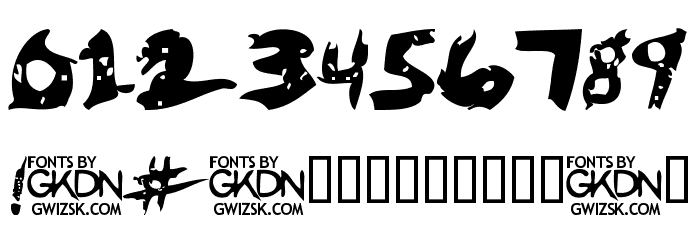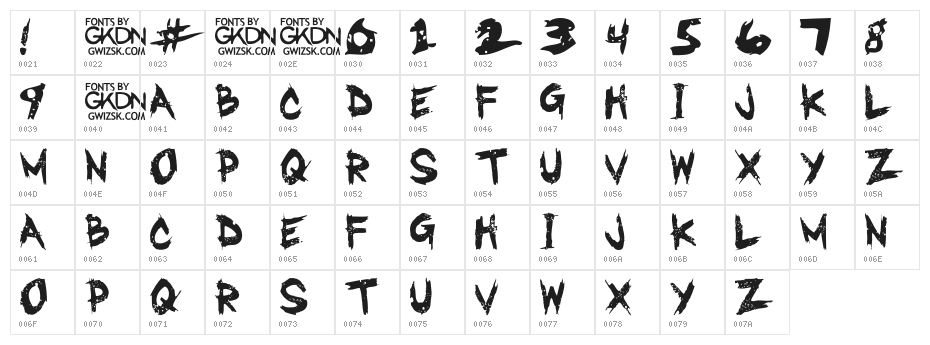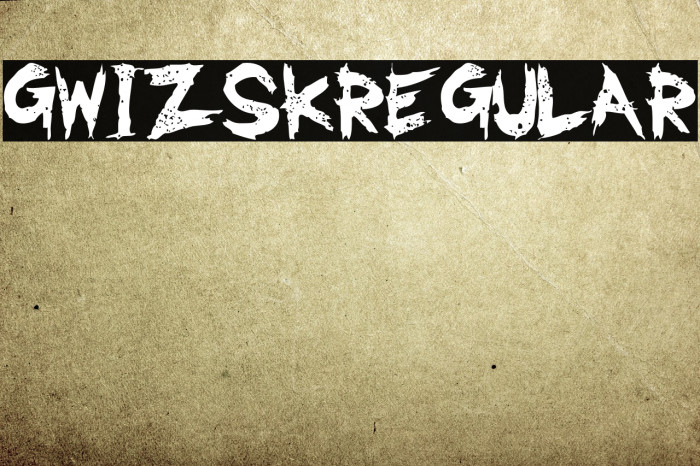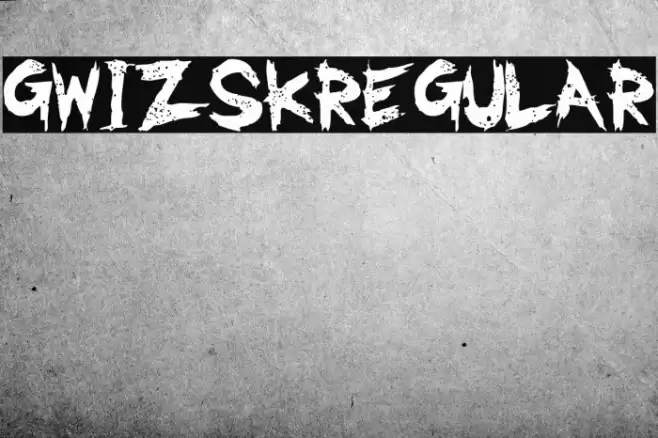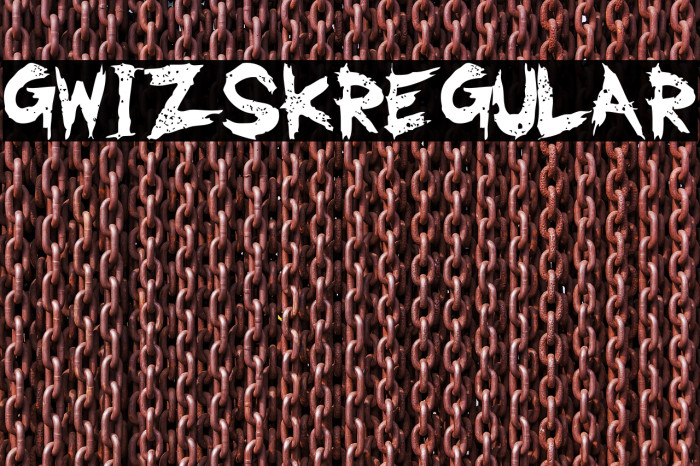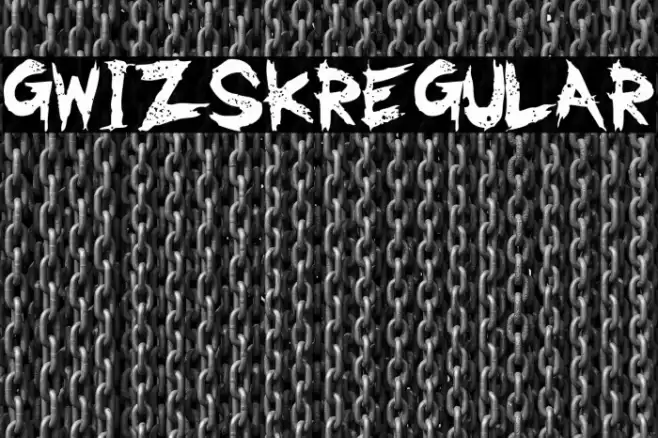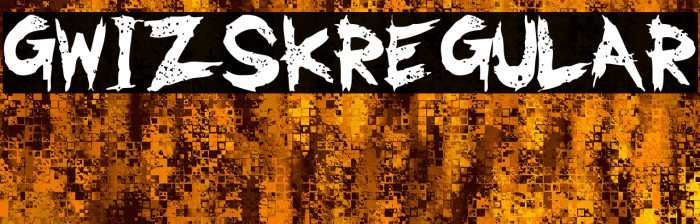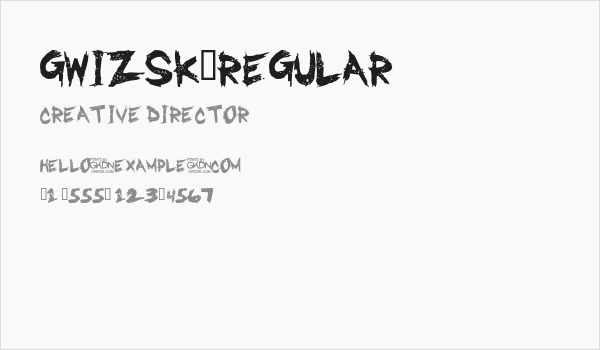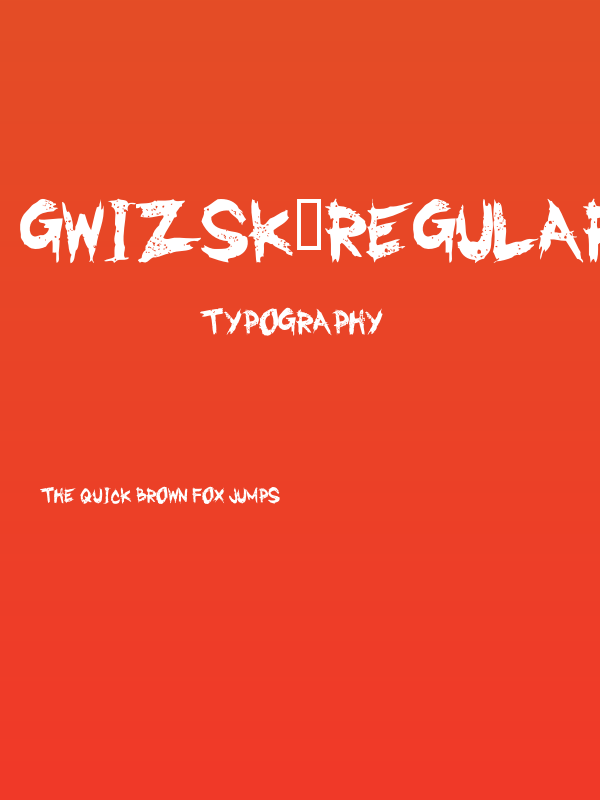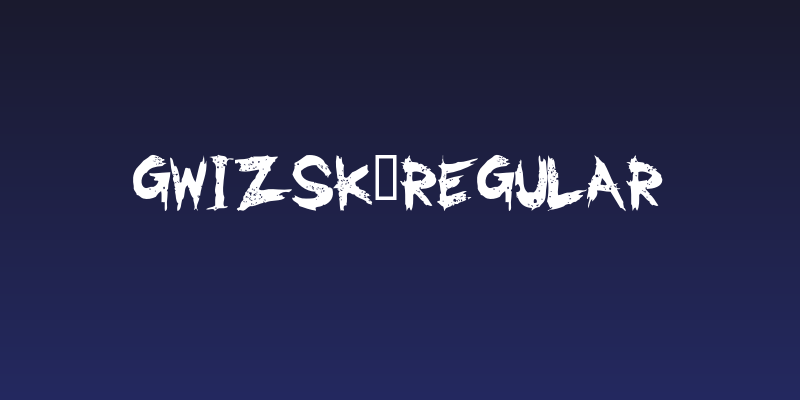
GwizsK-Regular Font
GwizsK-Regular Description
This font features a bold, distressed style with a grunge aesthetic. The characters are heavily textured, giving them a rough, edgy appearance. The uppercase and lowercase letters maintain a consistent style, with jagged edges and irregular shapes that suggest a hand-drawn or graffiti-inspired design. The numbers and special characters follow the same theme, adding to the overall cohesive look. This font is ideal for projects that require a rebellious or urban vibe, such as music album covers, posters, or streetwear branding.
Overall StyleGrunge, Urban, Edgy
Proposed ProjectsSuitable for music album covers, edgy posters, streetwear branding, and urban-themed designs.